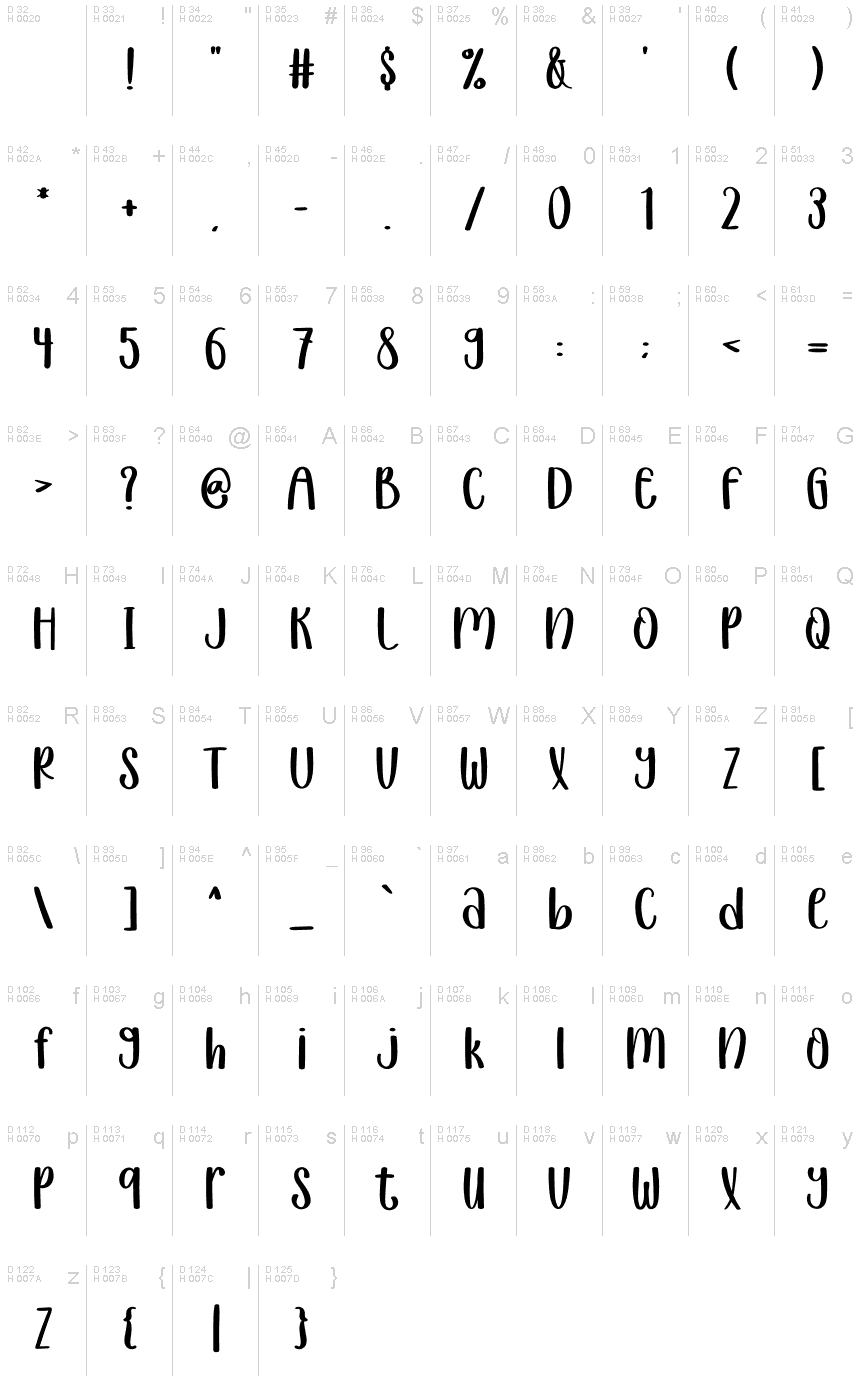
Unique
Unique is a quirky and chic lettered display font designed by Luluk Surotul. It can easily be matched to an incredibly large set of projects, so add it to your creative ideas and notice how it makes them stand out!